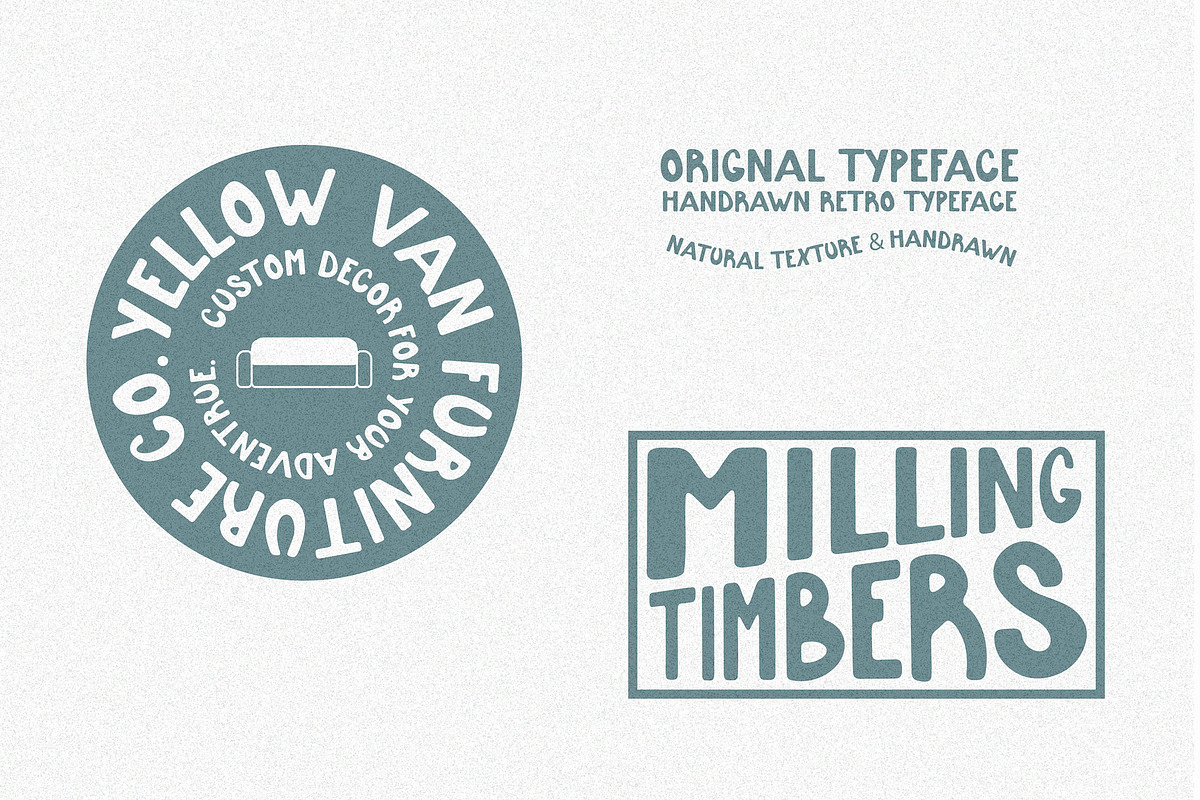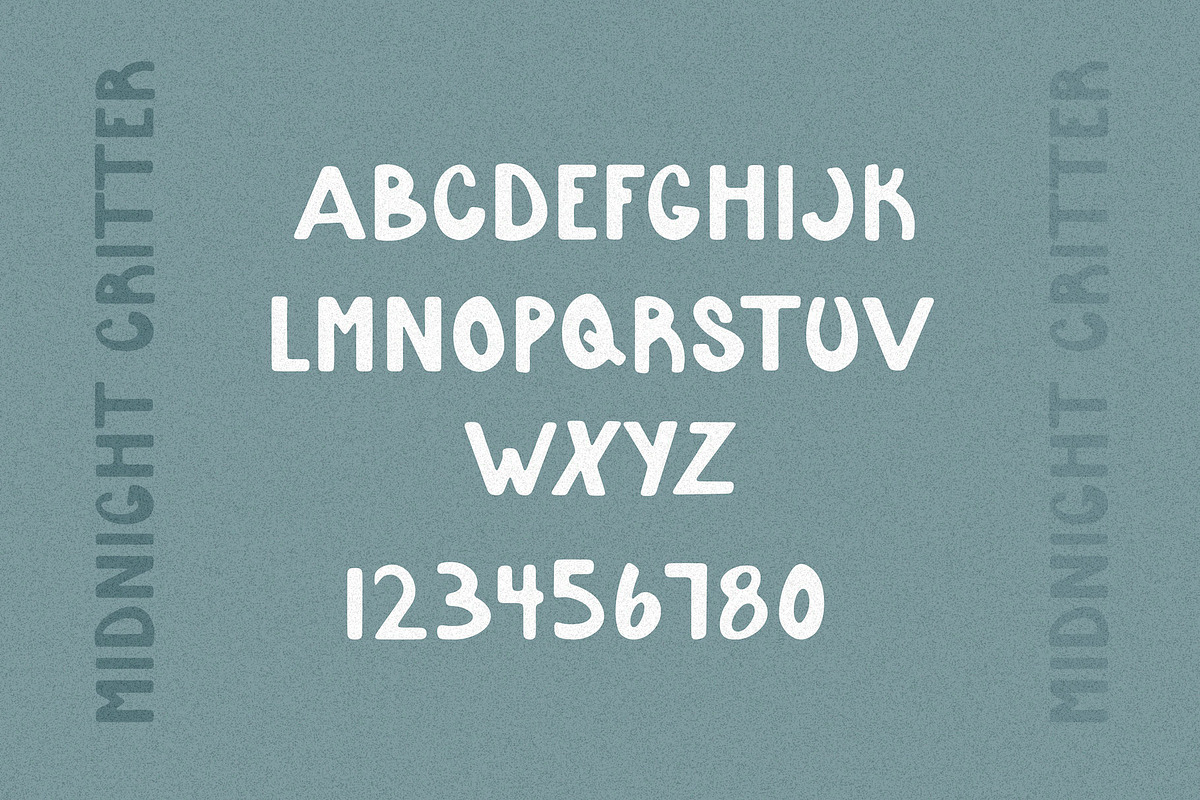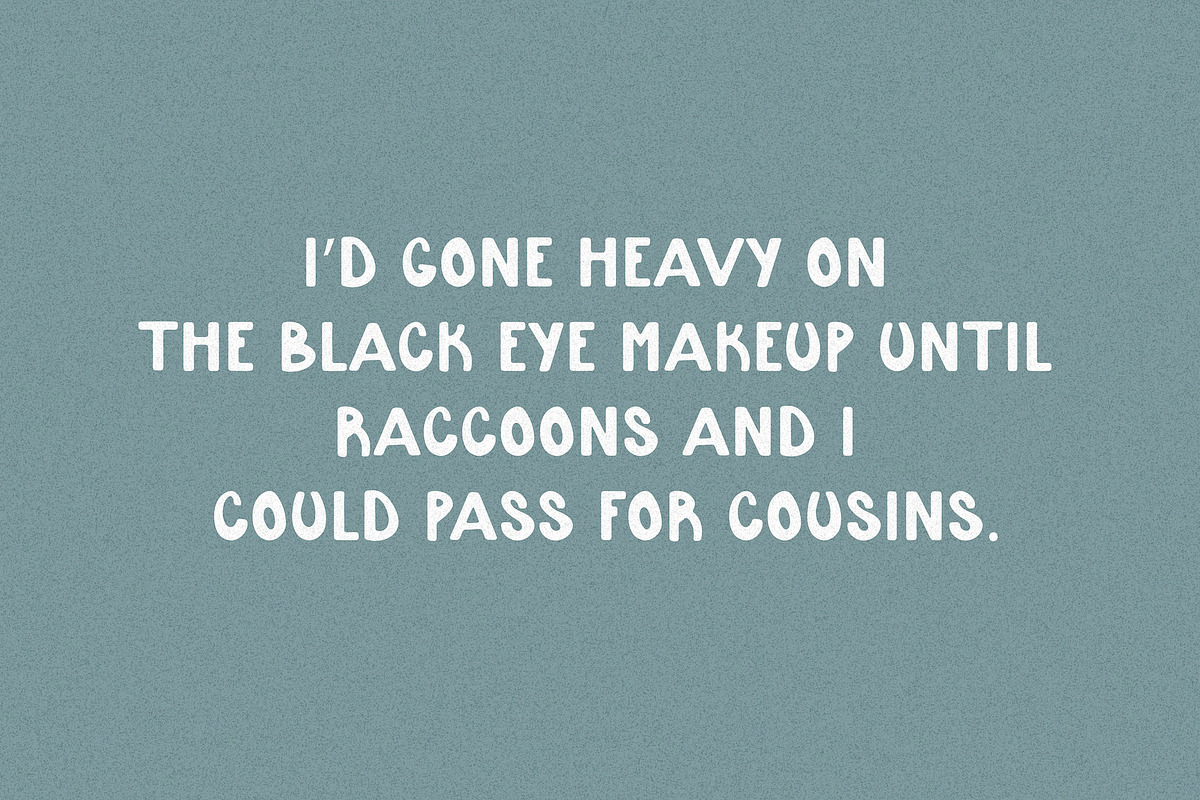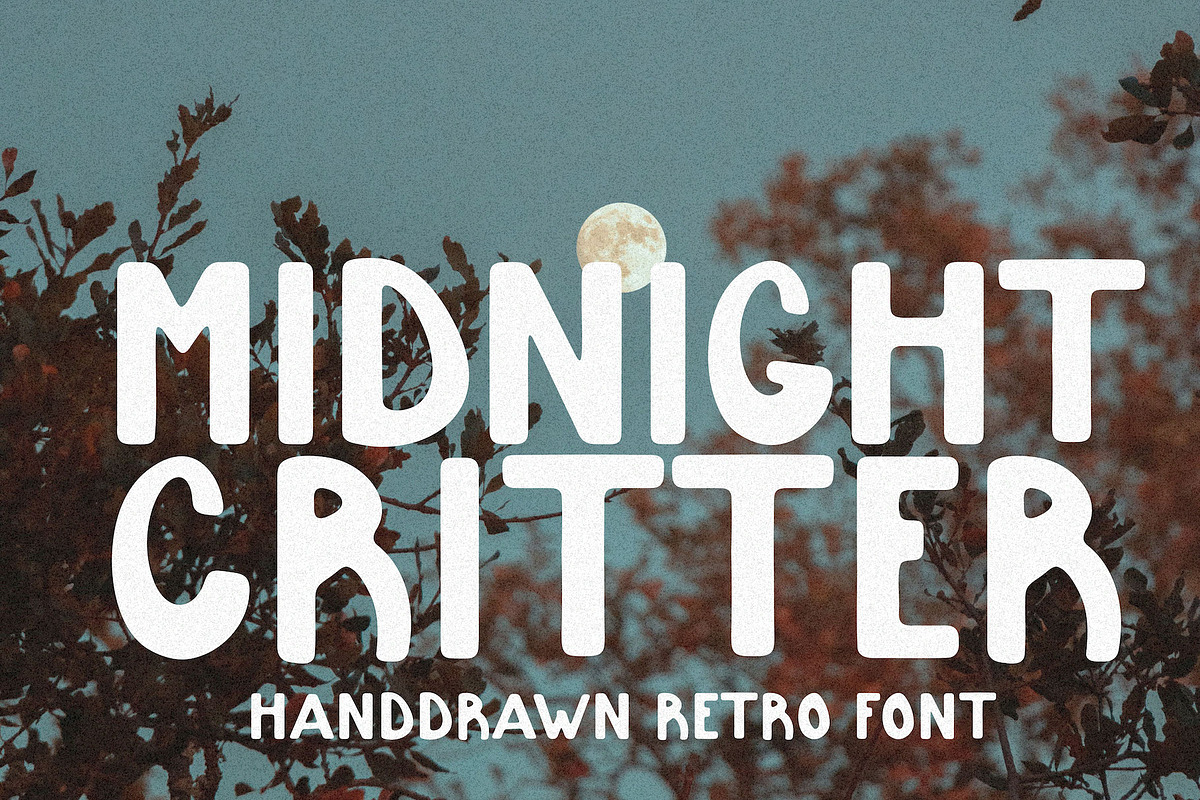
Midnight Critter - Hand Drawn Type
Midnight Critter is a hand-drawn font with retro charm and playful personality, perfect for merch, stickers, posters, and more